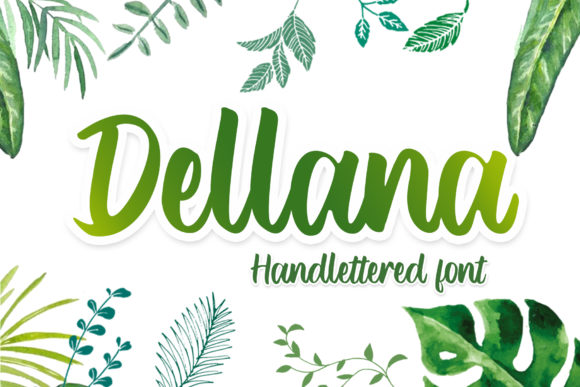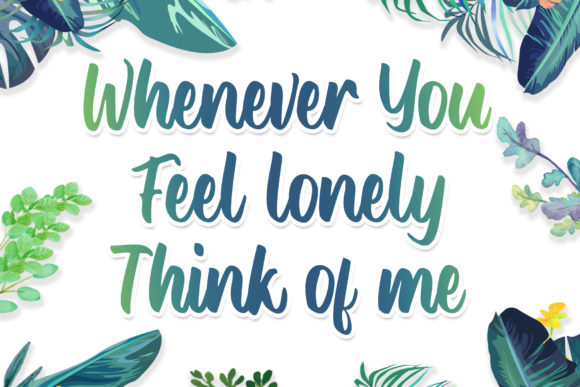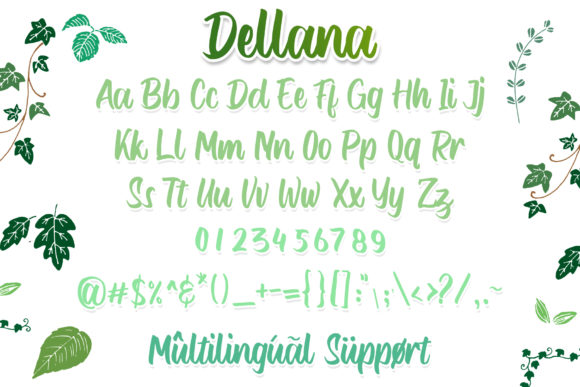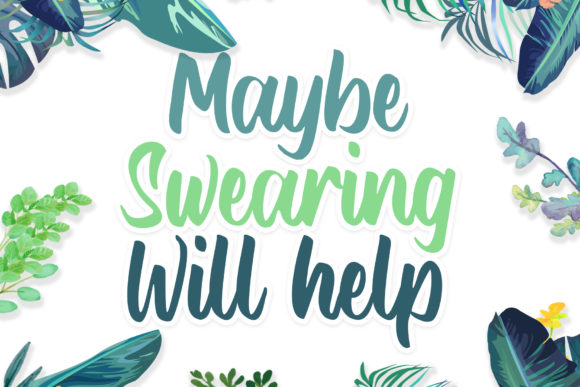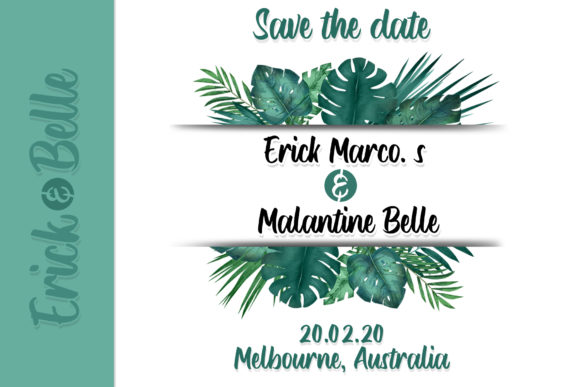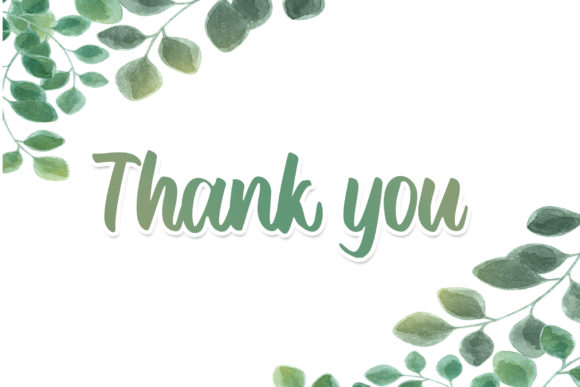
Dellana Font
About Dellana Font
Dellana is a gorgeous handwritten font that’s perfect for adding that sweet, personal touch to a wider range of designs. Get inspired by its unique style!